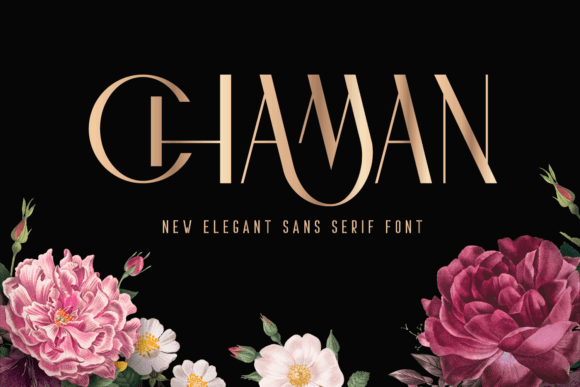
Introducing Chaman Font - The Epitome of Elegance and Modernity in the Digital Age
In a world of digital expression, where words come alive through visual artistry, allow us to unveil Chaman Font - a masterpiece crafted to elevate your designs to unprecedented heights. This sans serif font, the brainchild of the renowned 177Studio, is an ode to elegance and modernity, designed to capture the hearts of those who seek visual perfection. As the embodiment of sophistication, Chaman Font stands tall among its peers, ready to transform your creative visions into captivating realities.
From the moment you lay your eyes upon Chaman Font, you will be ensnared by its inherent grace and timeless appeal. Its clean lines and delicate curves exude a sense of effortless refinement, while its remarkable versatility opens up a universe of possibilities for your creative endeavors. Whether you seek to craft an eye-catching logo that radiates professionalism, design elegant wedding invitations that exude romance, or compose social media posts that exude a touch of class, Chaman Font is your steadfast companion, guiding you towards design brilliance.
Experience the Unparalleled Charm of Chaman Font
Immerse yourself in the exquisite world of Chaman Font and discover a treasure trove of typographic wonders. With its PUA encoding, you are granted the freedom to effortlessly access a vast repertoire of glyphs and swashes, empowering you to unleash your creativity and bring your design concepts to life. Experiment with a myriad of stunning ligatures and alternates, adding an extra layer of visual intrigue to your projects. As you delve deeper into the depths of Chaman Font's versatile style, you will uncover a boundless realm of design possibilities, limited only by the confines of your imagination.
Ignite Your Passion for Design with Chaman Font
Let Chaman Font ignite the fire of passion within you, inspiring you to create designs that resonate with your audience and leave a lasting impression. Whether you are a seasoned designer seeking to elevate your craft or a novice eager to make a mark in the digital realm, Chaman Font will be your trusted ally, propelling you towards design greatness. With its intuitive nature and user-friendly design, Chaman Font welcomes you into its creative embrace, inviting you to explore the limitless possibilities that await.
Unlock the Gateway to Design Excellence with Chaman Font
Take the first step towards design excellence today and embrace the transformative power of Chaman Font. Let its elegant strokes and modern aesthetic elevate your projects to new heights of sophistication. Imagine the awe-inspiring logos, the captivating social media posts, and the unforgettable branding materials you will create, all thanks to the magic of Chaman Font. Don't let this opportunity pass you by. Download Chaman Font now and embark on a journey of creative exploration that will redefine your design horizons.